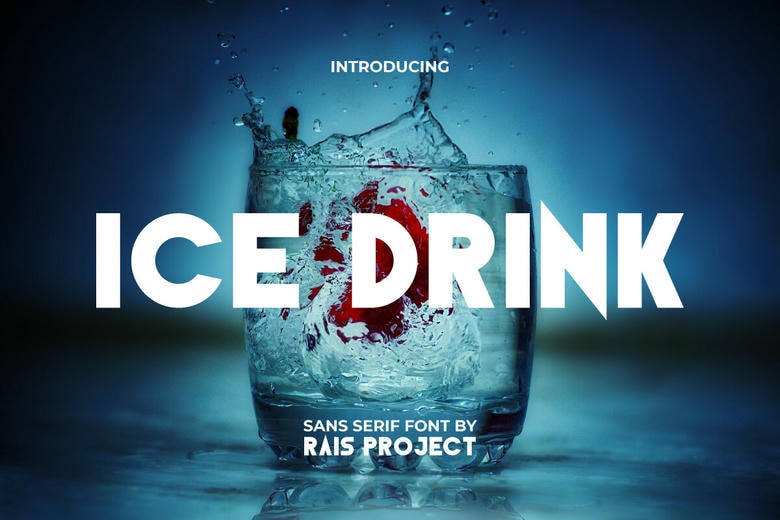
Ice Drink Font
Ice Drink is a a modern and trendy sans serif font. Big and bold typeface can emphasize the text you want to add to your design and make it easily recognizable, such as brand image, business card, cover, custom design, invitation, label, magazine, menu, poster, product packaging, quote, signage, web, and more!
Ice Drink Sans Serif Font